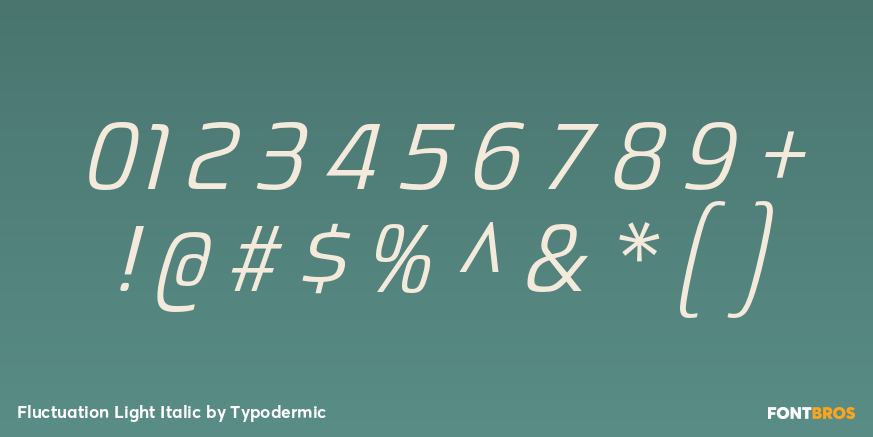
Fluctuation Light Italic
Buy NowContemporary hardware is designed with increasing care, yet its typography often feels like an afterthought. Heat pumps, air purifiers, home batteries, EV chargers, and premium appliances all feature refined industrial design, but their lettering often falls between generic sans serifs or overtly futuristic styles, neither of which suit products meant to live comfortably in domestic and work environments. Fluctuation bridges that gap.
This geometric display sans takes its cues from industrial design rather than science fiction. Subtly molded curves, compact proportions, and distinctive cathedral-inspired A and V echo the language of manufactured objects, giving product names and model designations a sense of belonging on the enclosure itself, rather than appearing as labels added at the last moment.
Fluctuation is particularly well suited to residential climate systems, air quality products, and home energy equipment. It gives heat pump series, ventilation systems, home batteries, EV chargers, and solar energy products a visual identity that feels engineered without feeling cold or industrial. The compact proportions neatly accommodate long model names, while the heavier weights provide enough substance to stand beside substantial hardware.
The same qualities make Fluctuation a natural choice for premium appliances where industrial design influences purchasing decisions. It works especially well for product families, model names, and launch graphics, alongside a quieter text face for specifications and interface copy. Its industrial design origins also extend naturally to engineered furnishings. Ergonomic seating, modular workplace systems, acoustic office pods, adjustable desks, and architectural lighting all benefit from typography that reflects the same balance of engineering and refinement.
Across the family, lighter weights reveal the underlying construction while heavier styles emphasize its molded architectural forms. Wherever industrial design has been given careful attention, Fluctuation helps ensure the typography feels like part of the product rather than an afterthought.